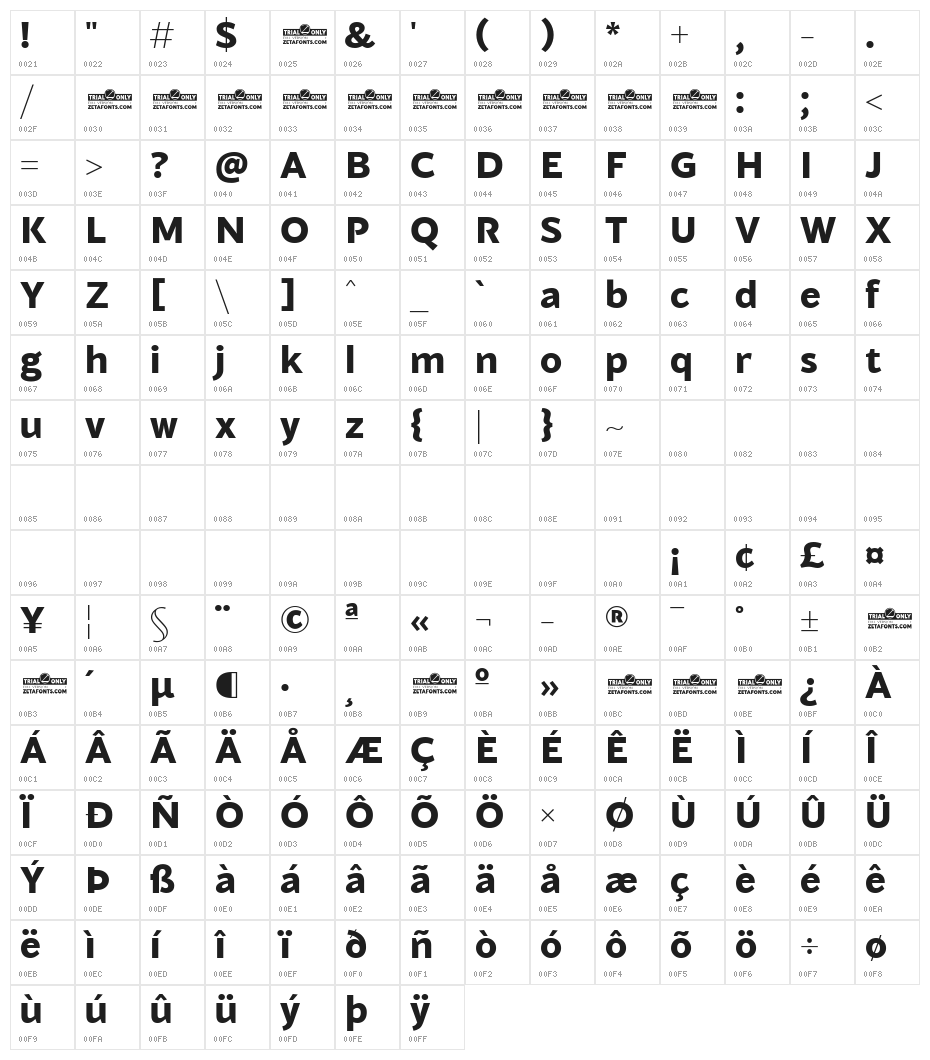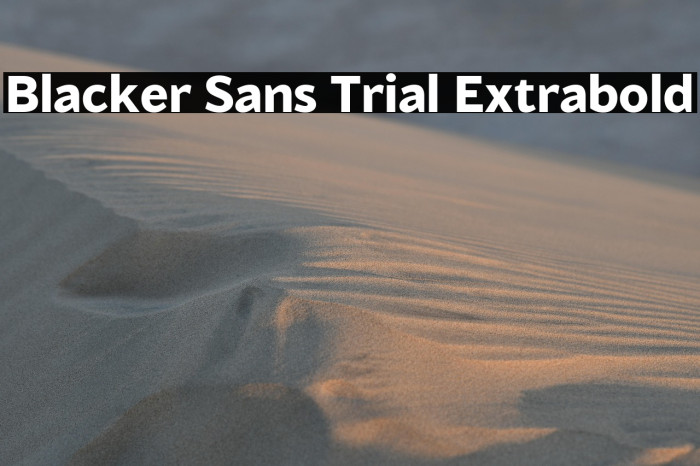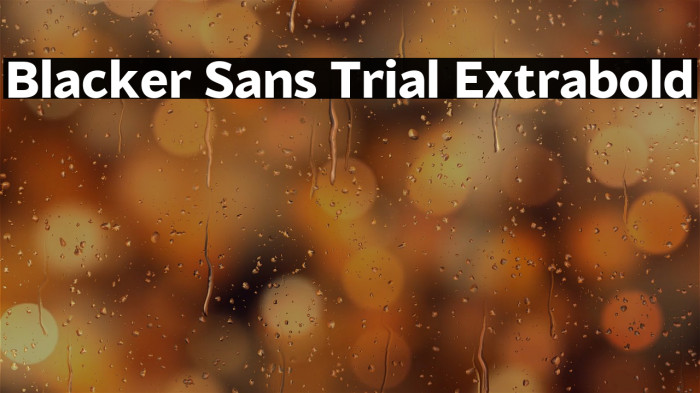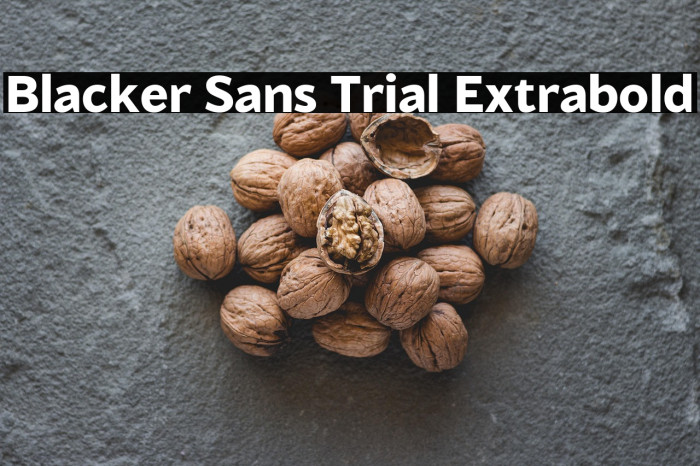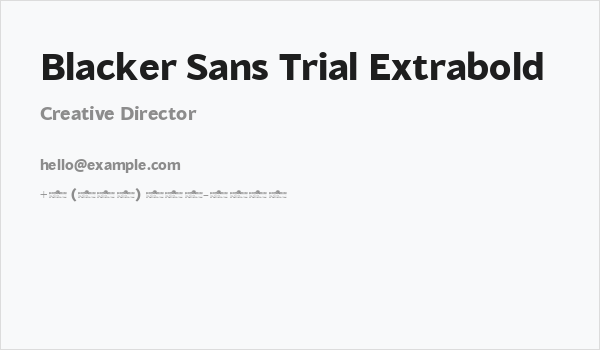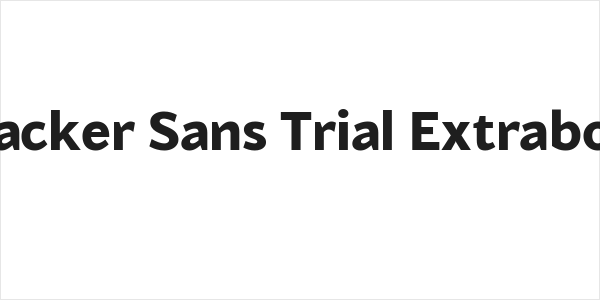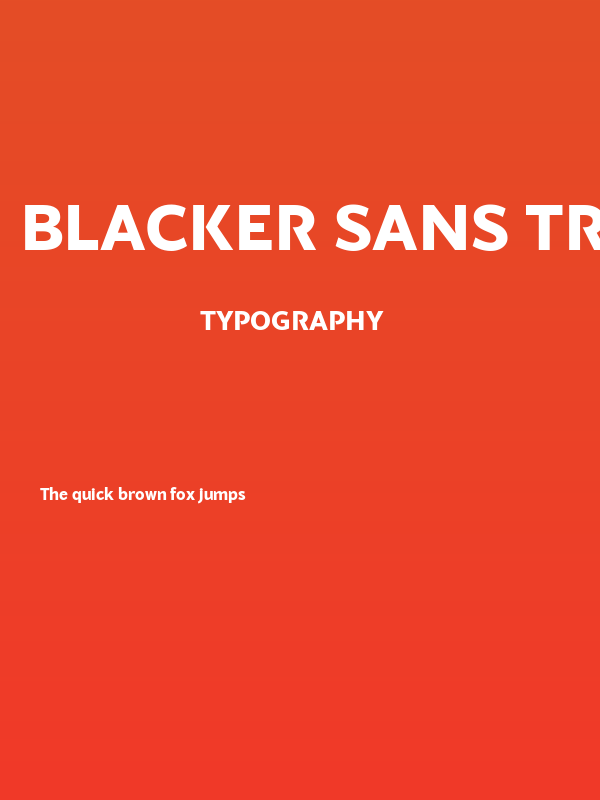
Blacker Sans Trial Extrabold Font
Blacker Sans Trial Extrabold Description
This font presents a bold and assertive sans-serif style, characterized by its thick strokes and clean lines. The uppercase and lowercase letters maintain a consistent weight, providing a strong visual impact. The design is modern and straightforward, with a focus on readability and clarity. The characters are well-proportioned, and the overall appearance is balanced, making it suitable for various applications. The special characters are designed with the same boldness, ensuring uniformity across all glyphs. This font is ideal for making statements and capturing attention.